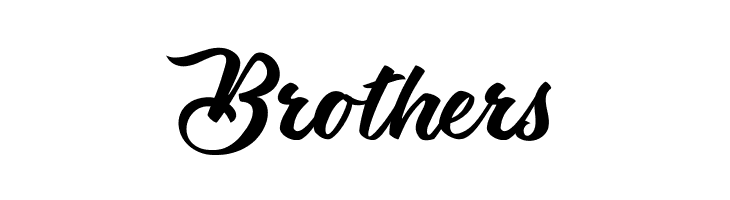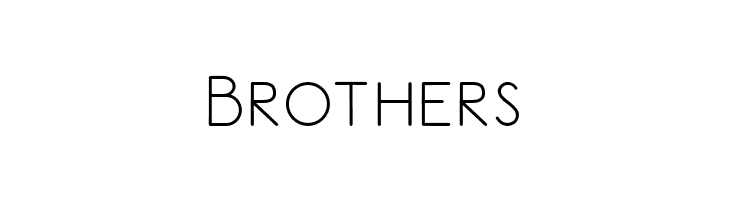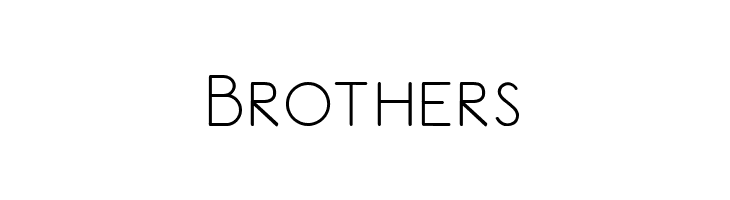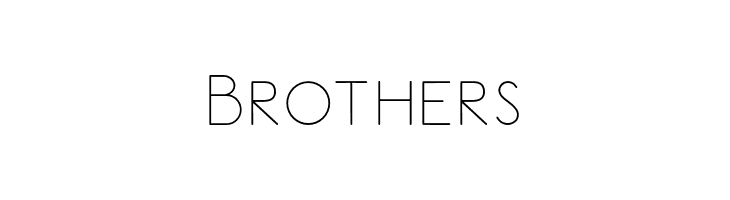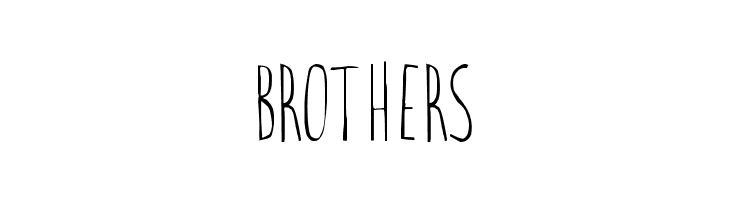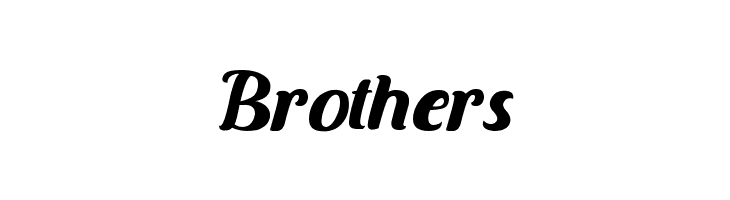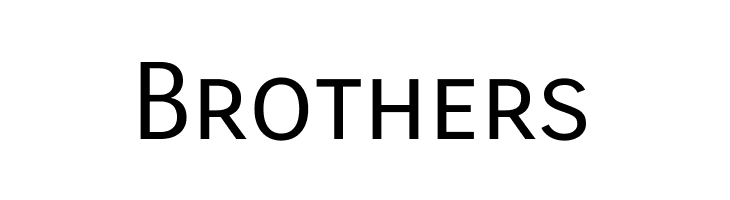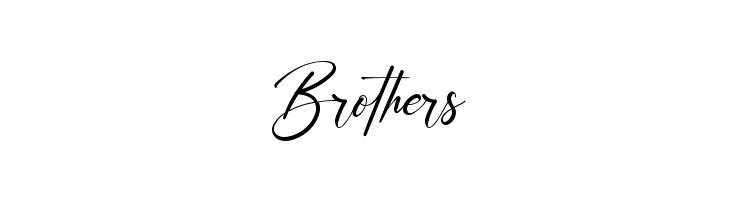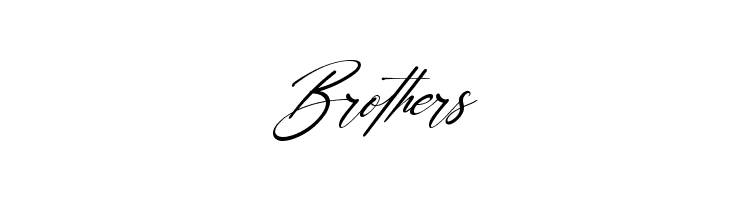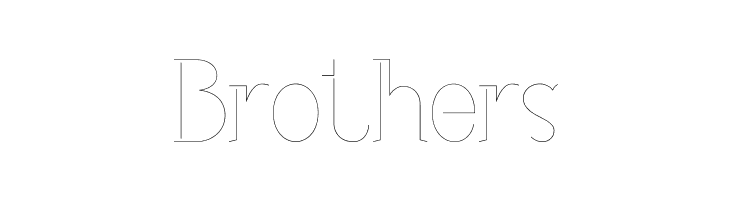
• Caroollina
A bold, expressive script font with elegant, flowing cursive strokes.
• Caroos
Bold, high-contrast serif font with a modern yet classic feel.
• Carpathe Bold
A bold, decorative font with geometric and elegant serif elements.
• Carpathe Light
A modern, elegant font with thin lines and geometric structure.
• Carpathe Regular
A modern, decorative font with geometric and artistic elements.
• carpenter Regular
A bold, handwritten-style font with a playful and dynamic appearance.
• Carpenter Tools
A minimalist icon set depicting various carpenter tools in monochrome.
• Carpenters Personal Use Regular
A bold, cursive font with a flowing, handwritten style.
• Carpete
A classic, elegant script font with flowing, cursive letterforms and ornate details.
• Carraosh
A playful and whimsical decorative font with unique, rounded letterforms.
• Carrera font Regular
A pixelated, blocky font with a retro digital aesthetic.
• Carrie Gallerie
An elegant and flowing script font with smooth, cursive letterforms.
• Carrie Gallerie
A refined and elegant script font with flowing, cursive letters.
• Carrie Gallerie Italic
An elegant, italic script font with flowing, interconnected characters.
• Carrie Gallerie Italic
A flowing, elegant script font with a sophisticated, italicized style.
• Carrinady
A sleek, modern font with geometric and minimalist design.
• Carrinady Bold
A modern, geometric font with clean lines and a minimalist style.
• CarrinadyBold
A modern, geometric font with clean lines and uniform stroke width.
• Carrois Gothic SC
• CarrolDEMO
A modern, clean sans-serif font with uniform strokes and excellent readability.
• CarrolWild-Clean
A clean, modern sans-serif font with geometric influences.